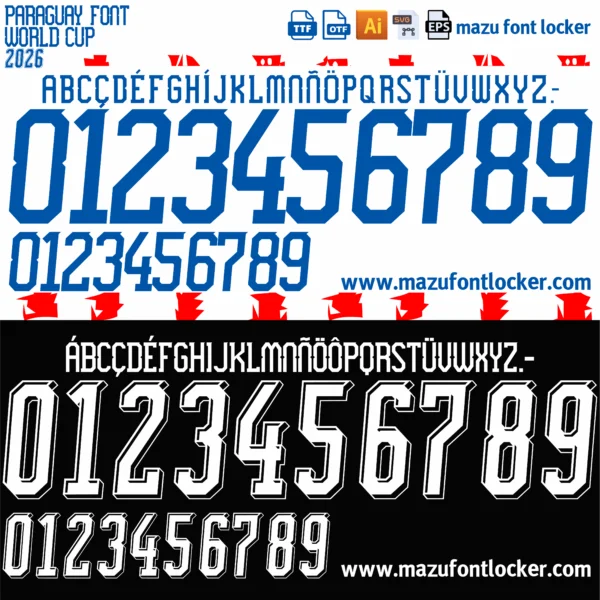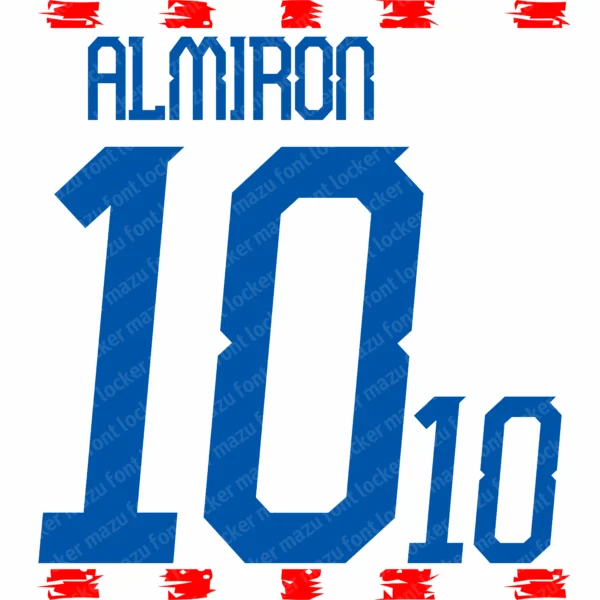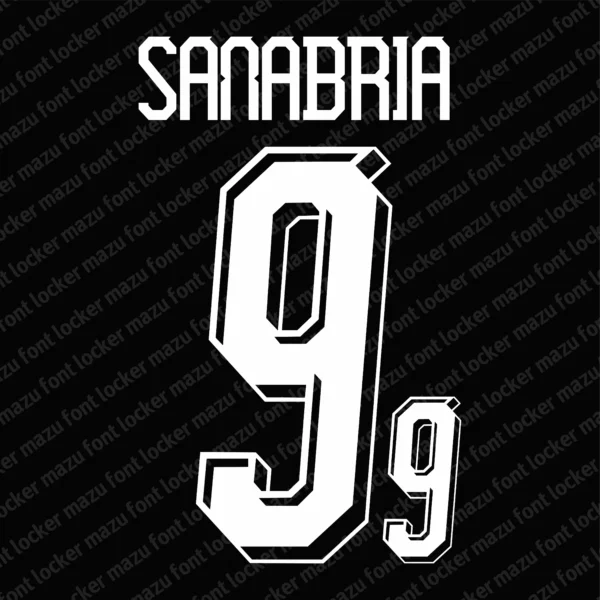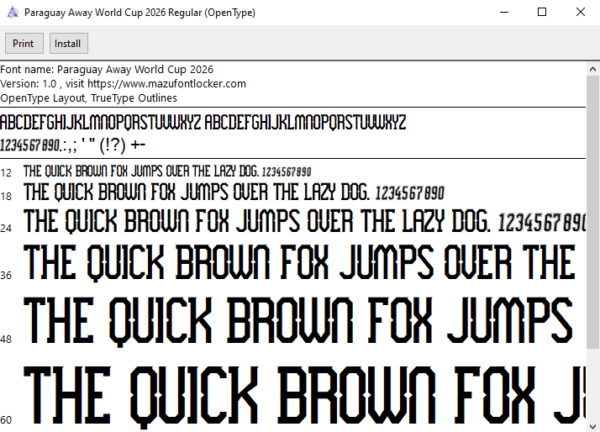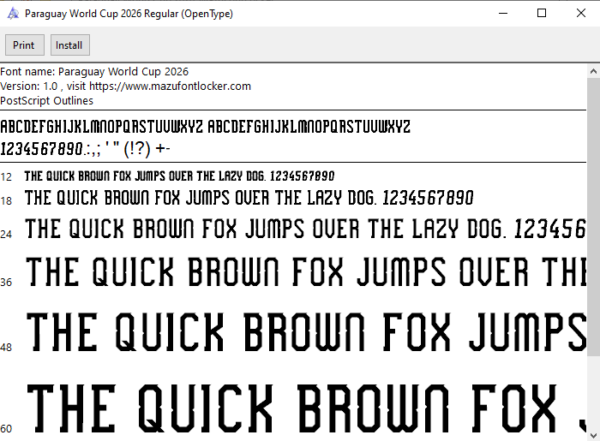
The Paraguay World Cup 2026 Font powerfully recreates the bold and dynamic match-style lettering worn by the Paraguay National Team in the 2026 FIFA World Cup. This font captures the fierce, modern typography that embodies the passionate red-and-white Albirroja spirit, delivering unmatched authenticity for premium jersey mockups and football designs.
The Paraguay World Cup 2026 Font is a premium typeface that accurately recreates the official match lettering worn by the Paraguay National Team during the 2026 FIFA World Cup campaign. This high-quality font kit captures the bold, clean, and powerful typography that marks the return of the Albirroja to the global stage.
Designed for professional designers and passionate Paraguay fans, the Paraguay World Cup 2026 Font delivers perfect authenticity for creating future jersey mockups, fan merchandise, matchday posters, social media graphics, and much more. It perfectly complements the team’s iconic red-and-white striped kits.
This font stands out because of its sharp details and strong presence. Every letter and number is crafted to match the exact style that will be used on the players’ shirts at the 2026 World Cup. Whether you are making modern shirt templates or exciting football content, the Paraguay World Cup 2026 Font gives your designs that authentic Albirroja look.
The letterforms in the Paraguay World Cup 2026 Font are tall, bold, and highly readable. The strokes have a balanced weight that looks powerful and professional on the back of jerseys while maintaining excellent clarity.
The numerals use solid curves and firm edges, giving them a confident and premium appearance. This design ensures great legibility whether used in large print formats, digital mockups, or World Cup content.
- Full uppercase A–Z and numbers 0–9 in authentic Paraguay 2026 style
- Special Paraguay logo glyph for accurate shirt number detailing
- Multilingual Latin character support including diacritics
- Create highly realistic 2026 World Cup jersey mockups with accurate lettering
- Design classic matchday posters, score graphics, and squad announcements
- Produce custom Paraguay merchandise with an authentic football aesthetic
- Includes the exact logo glyph placement used under player numbers
Paraguay at the 2026 World Cup